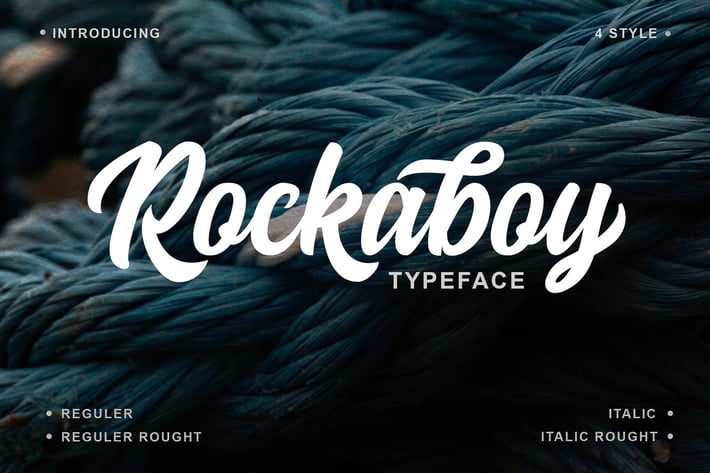
Rockaboy 4 Style Font
Rockaboy Script with 4 style (Regular, Italic, Rought and Italic Rought)
Rockaboy is a script font very recomended use to a logotype, display, title, packaging, headline, poster, t-shirt/apparel, Bussiness card and wedding invitation.